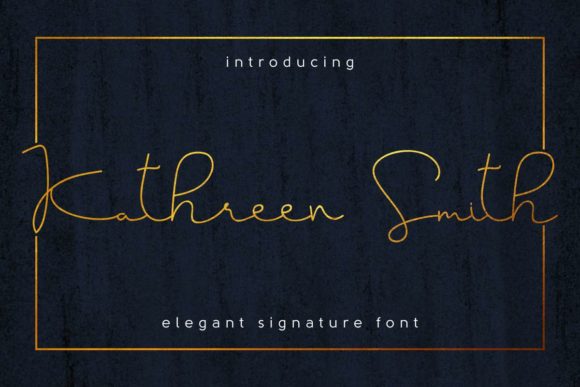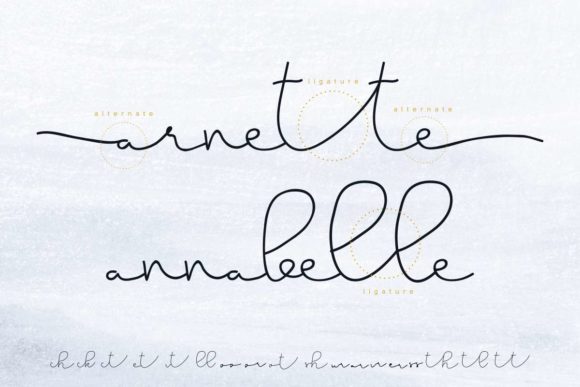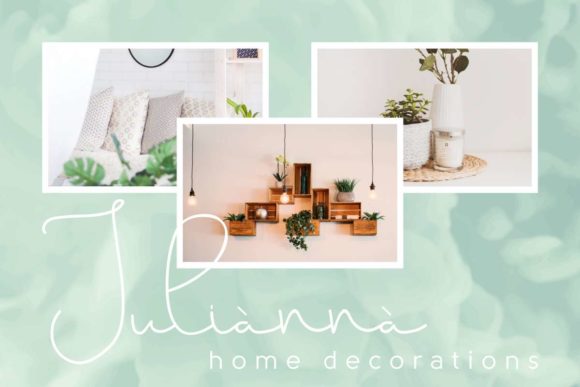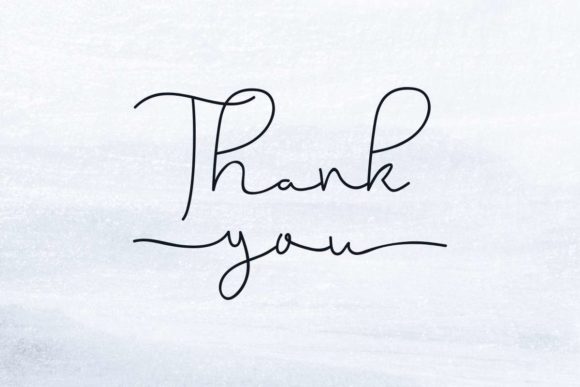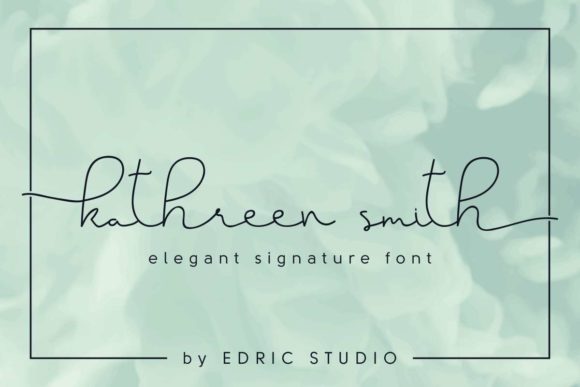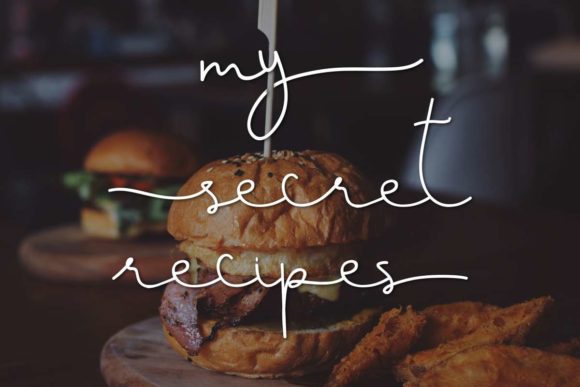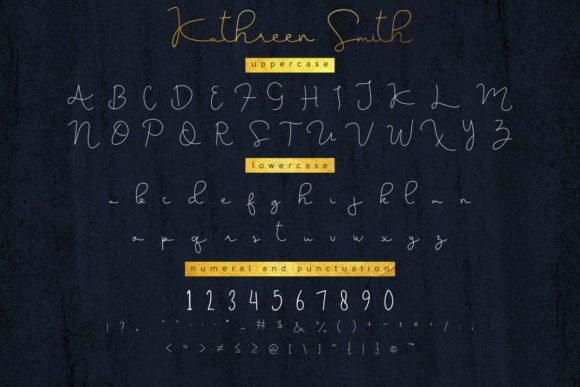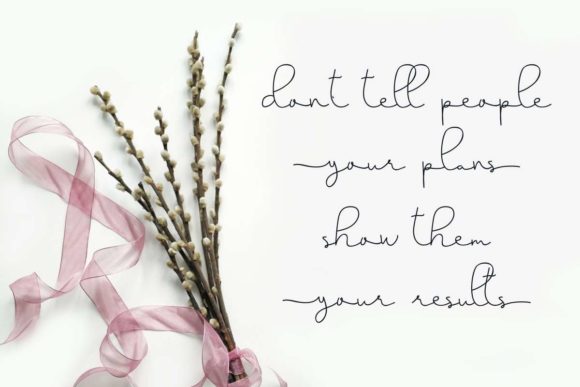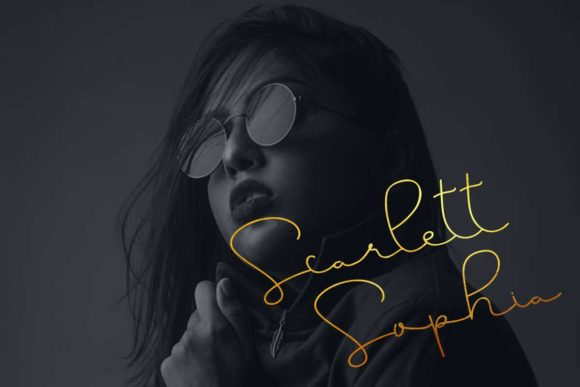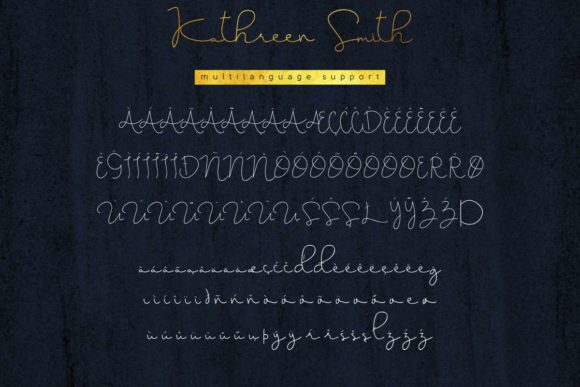
Kathreen Smith Font
About Kathreen Smith Font
Kathreen Smith radiates charm and authenticity. This unique script will turn any design into a standout in an instant.